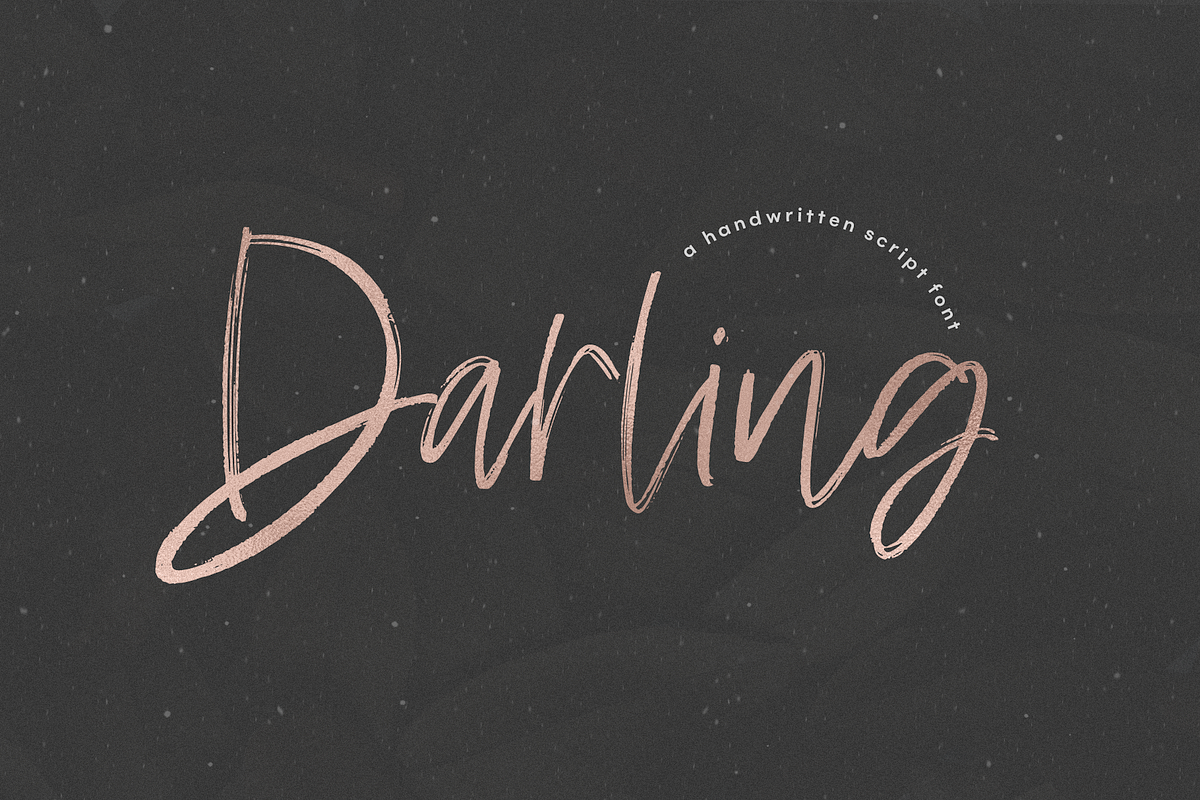
Please note, you must purchase this font for commercial use. However, you can easily download Darling | Handwritten Script Font Free Download for personal use and testing purposes. Darling | Handwritten Script Font is a beautiful and elegant script typeface with a flowing, handwritten style. Perfect for invitations, branding, logos, social media graphics, and more, this font adds a personal, artistic touch to any design. Its smooth curves and graceful strokes bring a romantic, refined feel to your projects, making it ideal for weddings, fashion, and other creative designs. Download Darling | Handwritten Script Font Free Download today and explore its potential before opting for a commercial license.